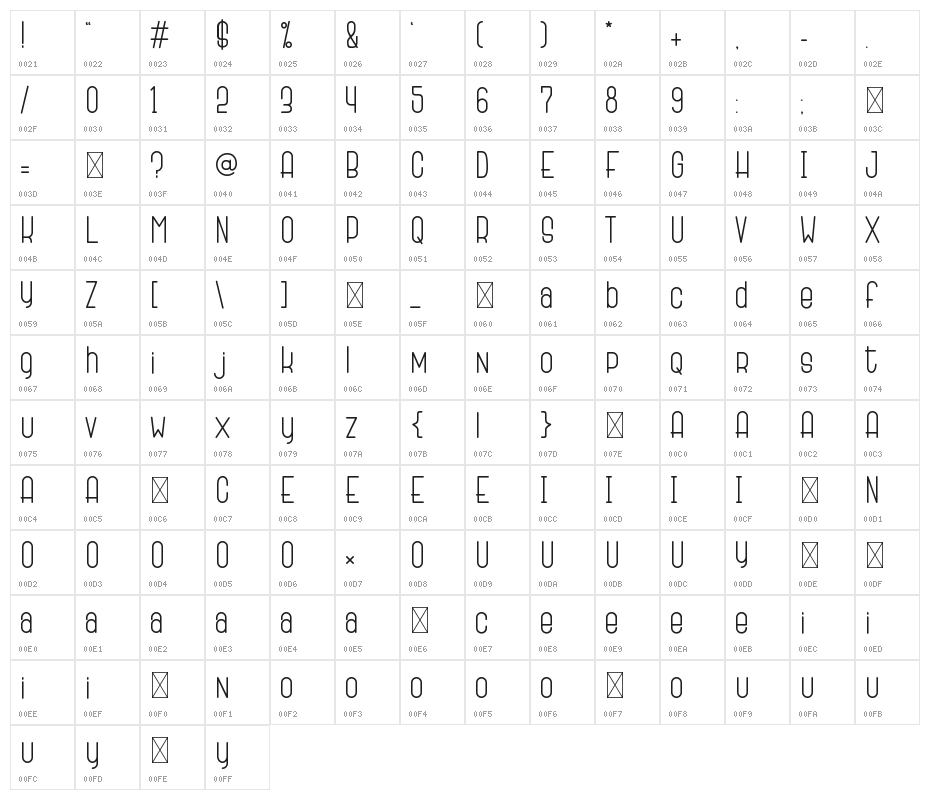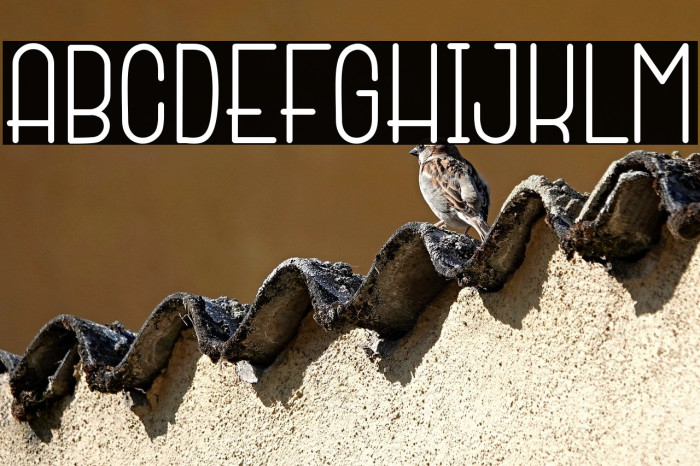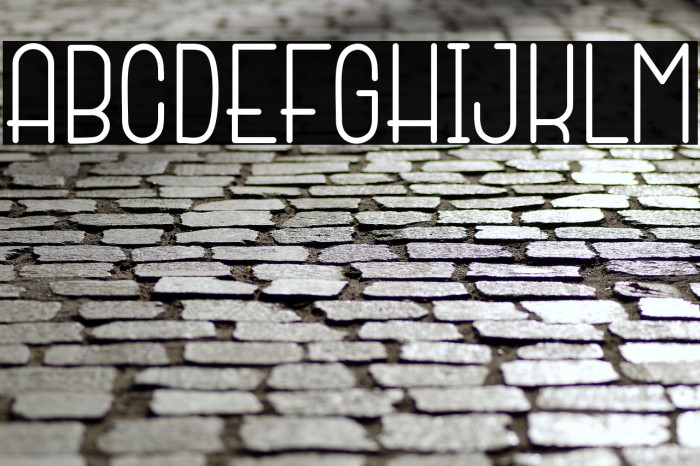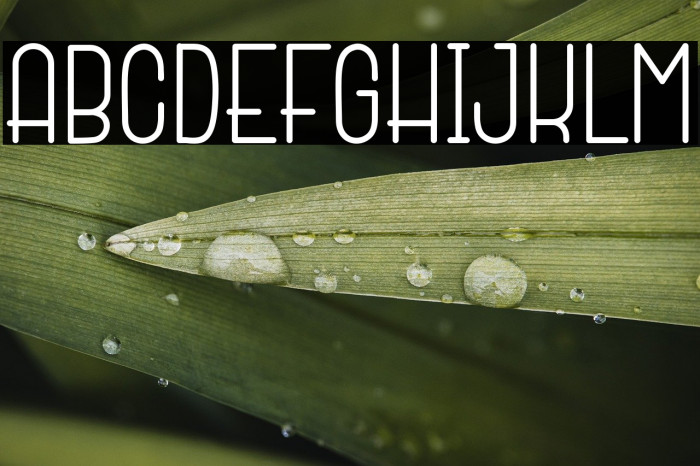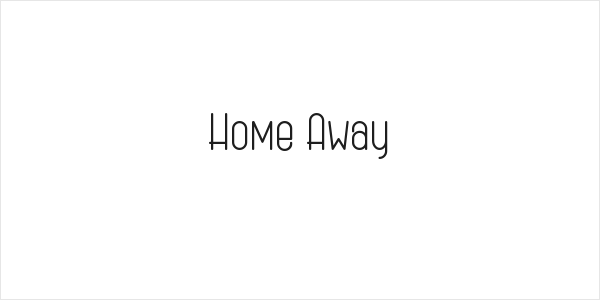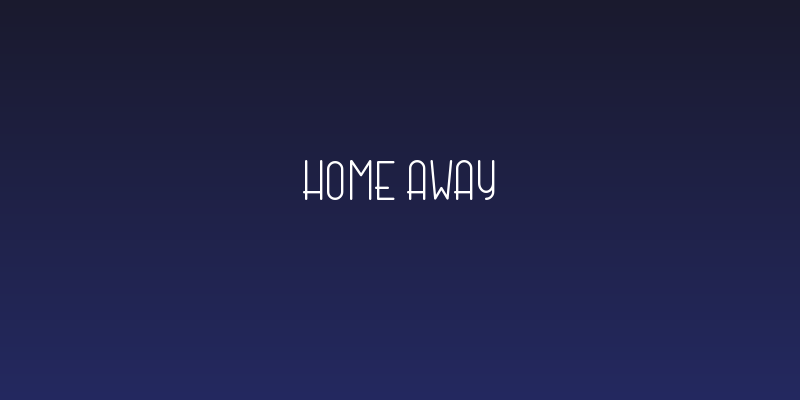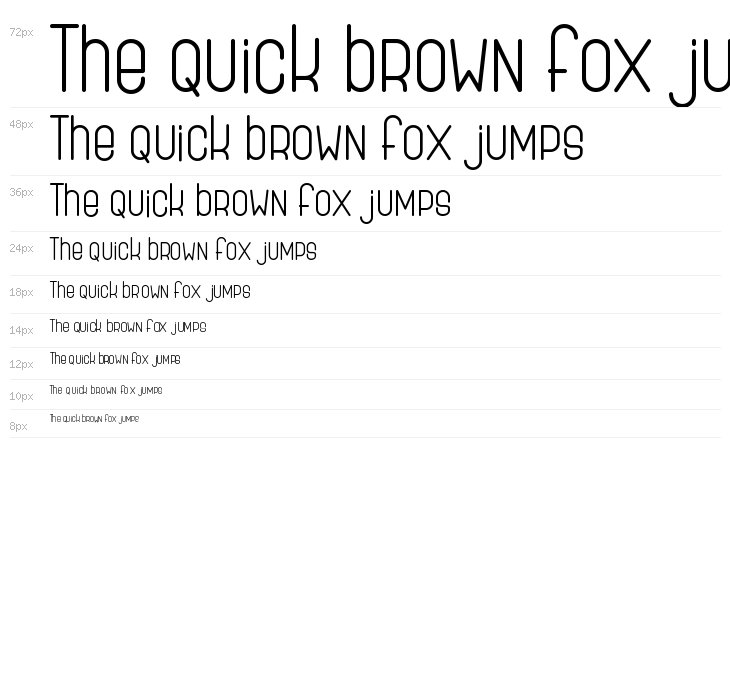
Home Away Font
Home Away Description
This font features a clean and modern design with rounded edges and a monospaced style. The characters are evenly spaced, providing a uniform appearance that is both functional and aesthetically pleasing. The uppercase and lowercase letters maintain a consistent height, contributing to its readability. The numerals are distinct and align well with the overall style, making them suitable for various applications. Special characters are included, adding versatility to the font's use. The overall design is sleek and contemporary, making it ideal for digital and print media.